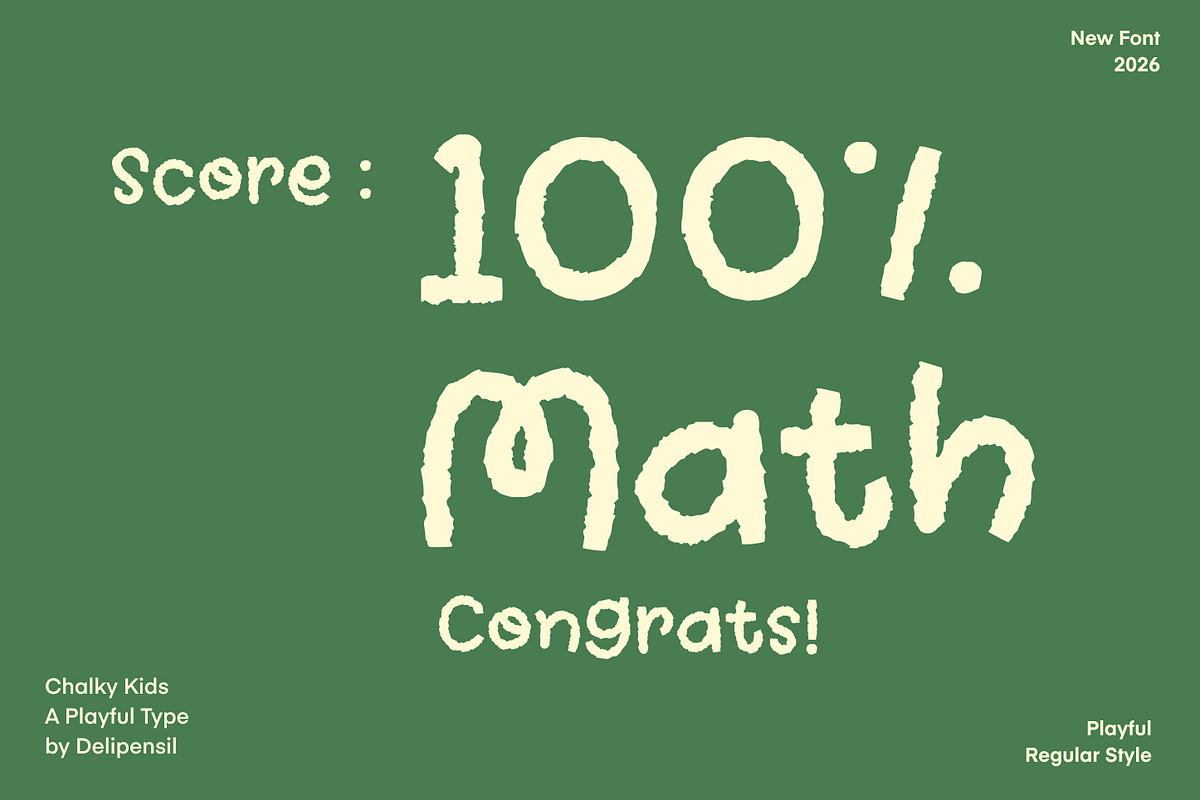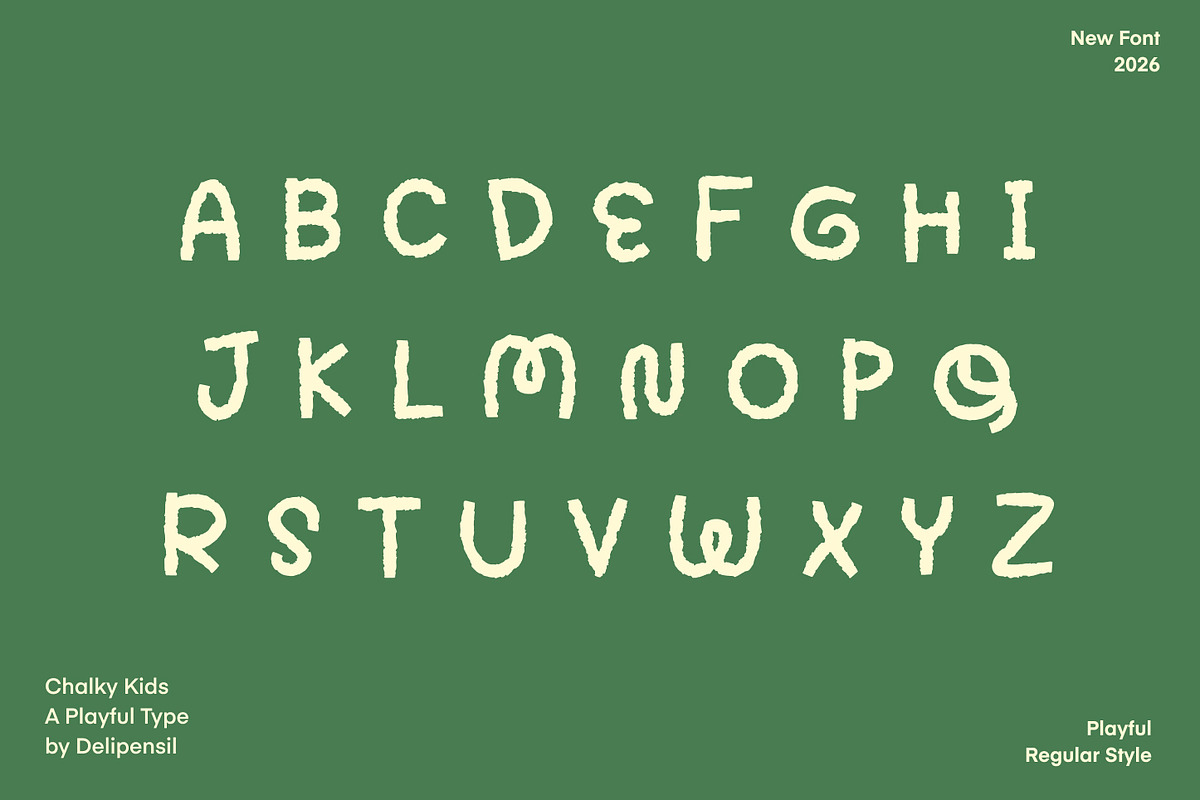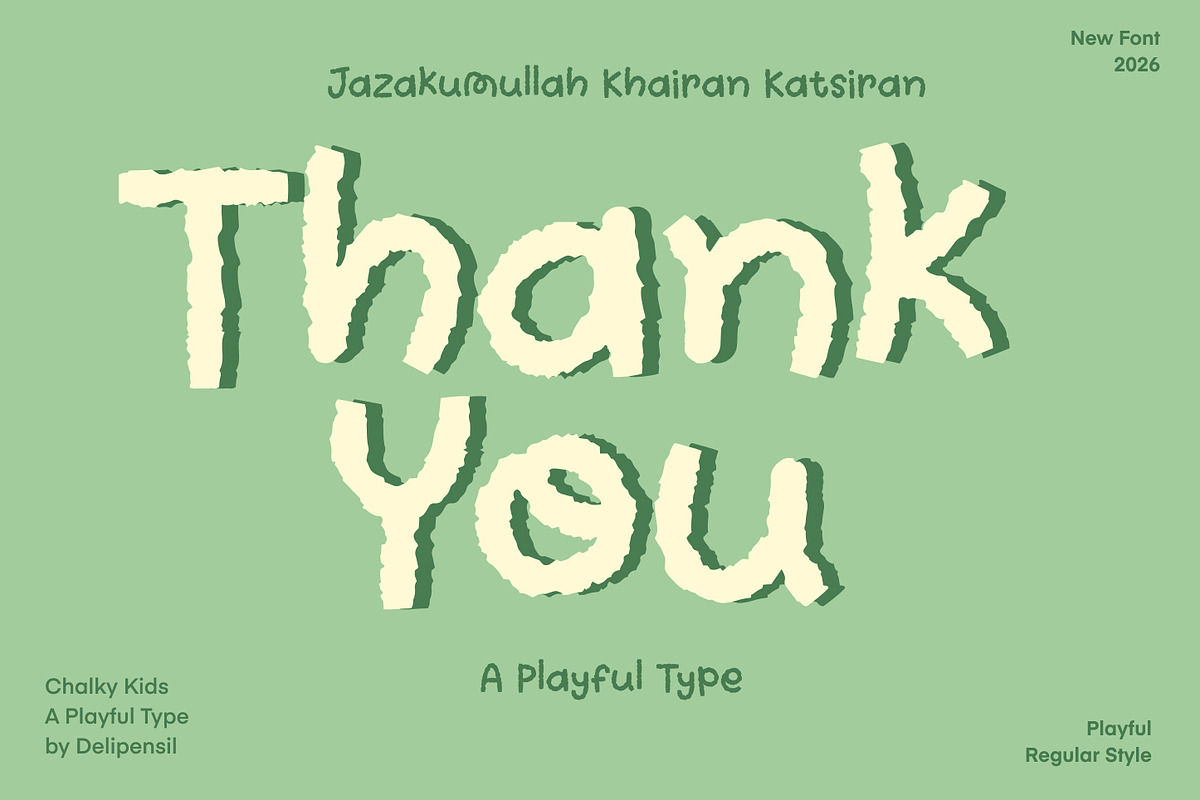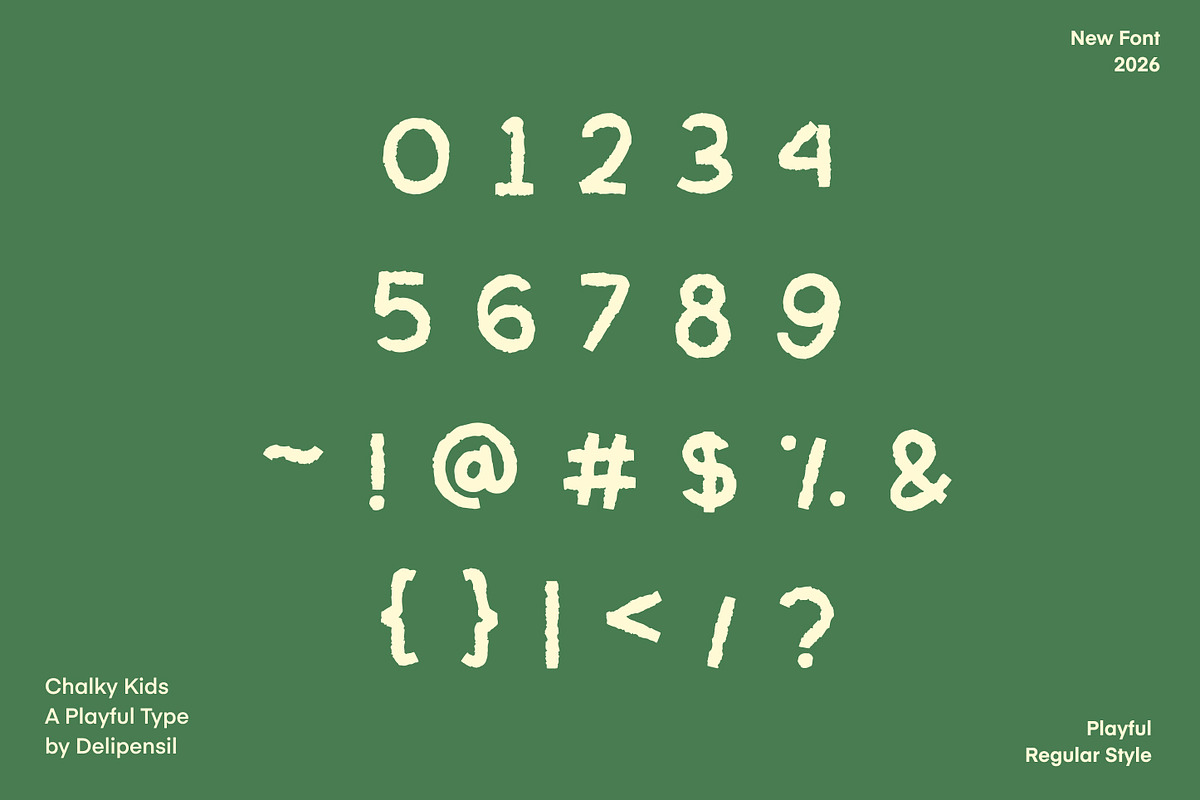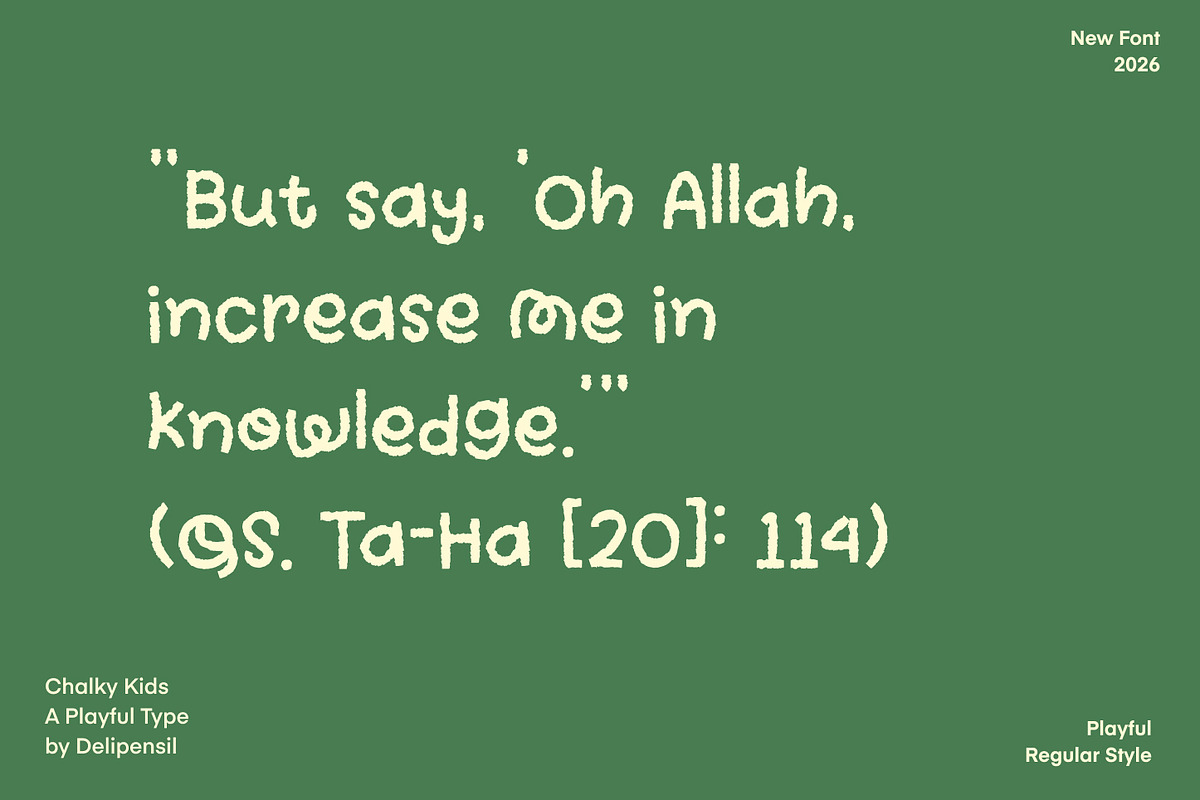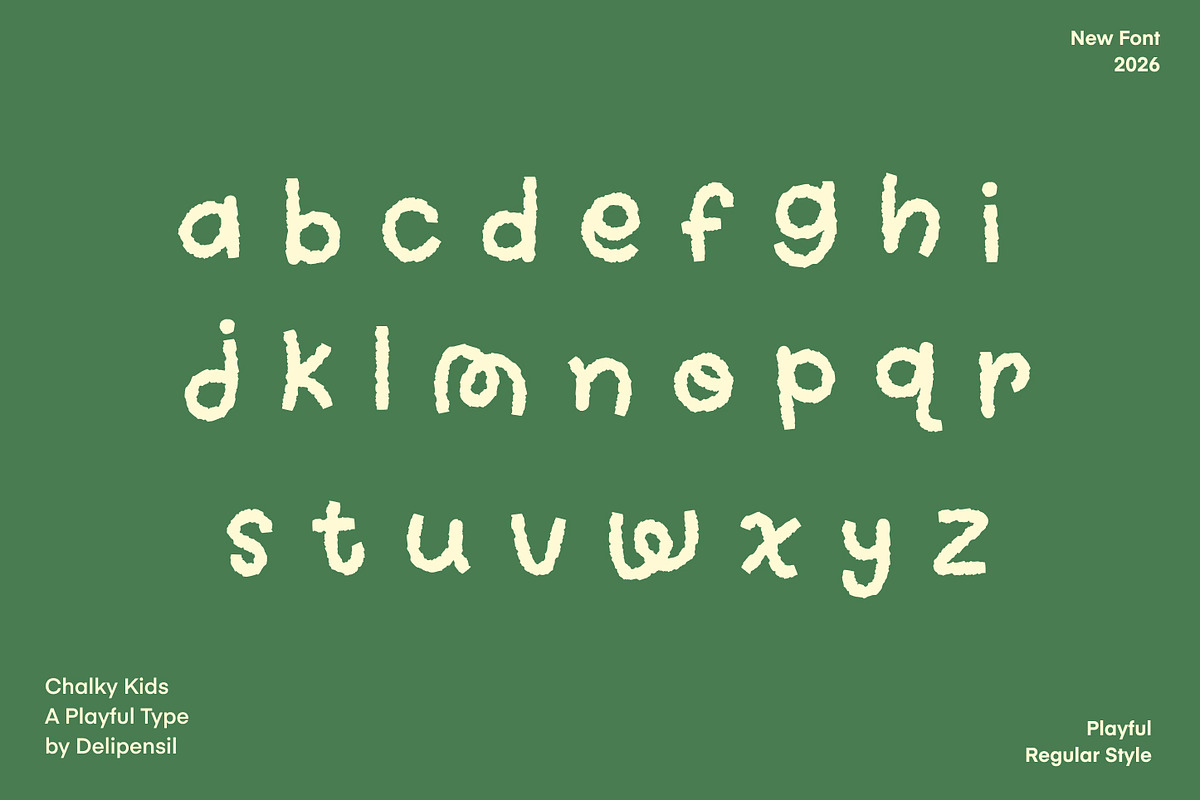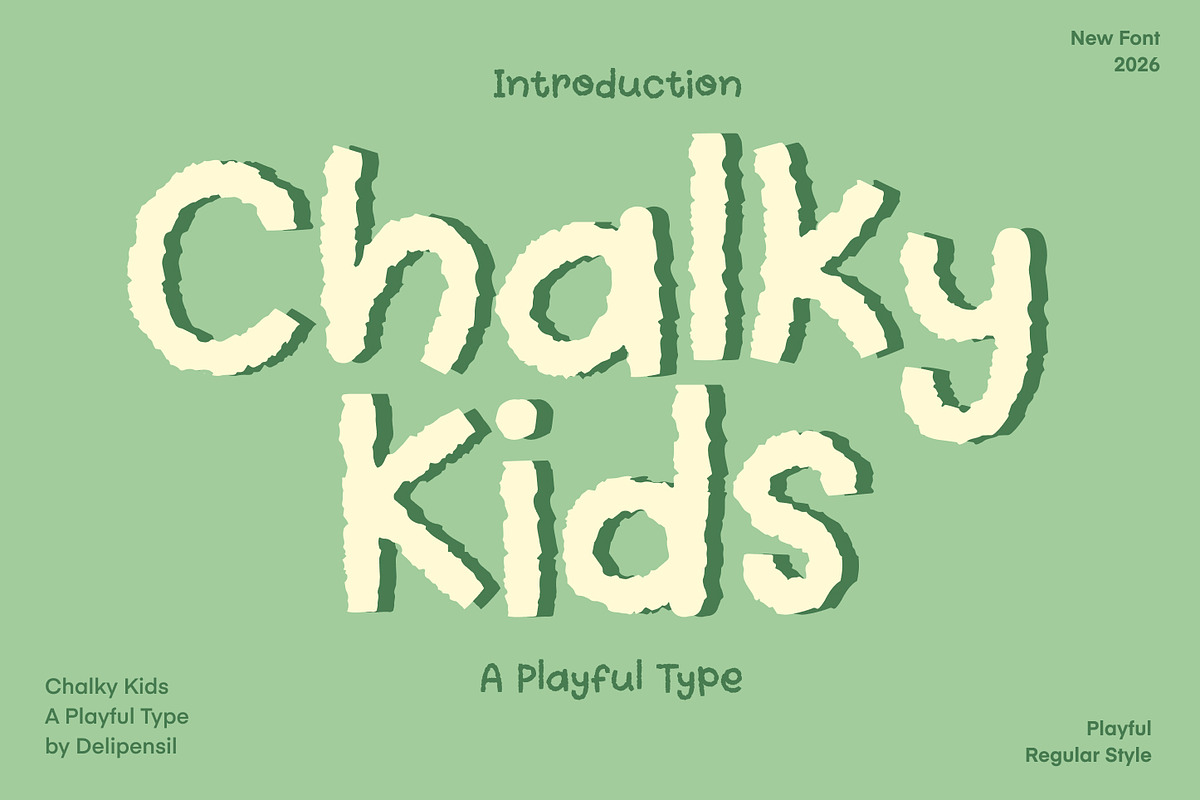
Chalky Kids - Playful Handwritten Ch
Bismillah Inroduction Chalky Kids is a fun and playful handwritten font inspired by children’s chalk drawings on a blackboard. With its rough, textured strokes and imperfect lines, this font brings a natural, cheerful, and youthful feel to any design.
Perfect for school-themed projects, kids’ products, educational materials, storybooks, posters, packaging, and creative branding, Chalky Kids captures the charm of childhood creativity and imagination.
Whether you're designing for kids or simply want to add a friendly and casual touch, this font will make your work stand out with its unique chalk-style appearance.
- Hand-drawn chalk texture style
- Easy to use and versatile
Add a touch of fun and creativity to your designs with Chalky Kids!